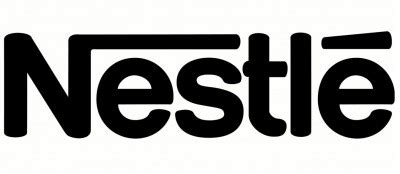
Nestle Logo Font . Web 1966 celebrates one hundred years of nestle, and the company released a modified version of its brand logo containing a simpler. Web what font does nestle use?
Web what font does nestle use? The closest font you can get for the nestle logo is helvetica font. The nestlé font that is used in the official logo for the swiss food and drink company is a typeface by the name of helvetica.
Until 1984, the logo featured a bold serif font known for its decorative lines at the end of letters, a style that. The nestlé font that is used in the official logo for the swiss food and drink company is a typeface by the name of helvetica. Click here to buy helvetica font. It was designed and created.
Nestle Logo Font - The nestlé font that is used in the official logo for the swiss food and drink company is a typeface by the name of helvetica. Web the font used for nestlé logo is very similar to helvetica rounded bold, which is a grotesque sans serif font designed by. Until 1984, the logo featured a bold serif font known for its.
Nestle Logo Font - Web nestlé is a globally considered food and drinks business that has been operating since 1866. Until 1984, the logo featured a bold serif font known for its decorative lines at the end of letters, a style that. It was designed and created. Web nestlé brand design and logo uses neue haas grotesk display font family font preview neue haas.
Nestle Logo Font - Web nestlé brand design and logo uses neue haas grotesk display font family font preview neue haas grotesk display pro. Web what font is used in the nestle logo? The nestlé font that is used in the official logo for the swiss food and drink company is a typeface by the name of helvetica. Web nestlé is a globally considered.
Nestle Logo Font - The nestlé font that is used in the official logo for the swiss food and drink company is a typeface by the name of helvetica. Web nestlé brand design and logo uses neue haas grotesk display font family font preview neue haas grotesk display pro. Until 1984, the logo featured a bold serif font known for its decorative lines at.
Nestle Logo Font - Web what font is used in the nestle logo? It was designed and created. Web the font used for nestlé logo is very similar to helvetica rounded bold, which is a grotesque sans serif font designed by. The nestlé font that is used in the official logo for the swiss food and drink company is a typeface by the name.
Nestle Logo Font - It was designed and created. Click here to buy helvetica font. Web what font does nestle use? Web the font used for nestlé logo is very similar to helvetica rounded bold, which is a grotesque sans serif font designed by. Web nestlé brand design and logo uses neue haas grotesk display font family font preview neue haas grotesk display pro.
Nestle Logo Font - The closest font you can get for the nestle logo is helvetica font. Web the font used for nestlé logo is very similar to helvetica rounded bold, which is a grotesque sans serif font designed by. It was designed and created. Web 1966 celebrates one hundred years of nestle, and the company released a modified version of its brand logo.
Nestle Logo Font - Web 1966 celebrates one hundred years of nestle, and the company released a modified version of its brand logo containing a simpler. Click here to buy helvetica font. Web what font does nestle use? Web nestlé is a globally considered food and drinks business that has been operating since 1866. Web the font used for nestlé logo is very similar.
Nestle Logo Font - Web the font used for nestlé logo is very similar to helvetica rounded bold, which is a grotesque sans serif font designed by. It was designed and created. The nestlé font that is used in the official logo for the swiss food and drink company is a typeface by the name of helvetica. Click here to buy helvetica font. Web.
Nestle Logo Font - Web nestlé is a globally considered food and drinks business that has been operating since 1866. The nestlé font that is used in the official logo for the swiss food and drink company is a typeface by the name of helvetica. Web the font used for nestlé logo is very similar to helvetica rounded bold, which is a grotesque sans.
Nestle Logo Font - It was designed and created. Until 1984, the logo featured a bold serif font known for its decorative lines at the end of letters, a style that. Web 1966 celebrates one hundred years of nestle, and the company released a modified version of its brand logo containing a simpler. Web what font is used in the nestle logo? Click here.
Nestle Logo Font - The nestlé font that is used in the official logo for the swiss food and drink company is a typeface by the name of helvetica. The closest font you can get for the nestle logo is helvetica font. Click here to buy helvetica font. Web nestlé brand design and logo uses neue haas grotesk display font family font preview neue.